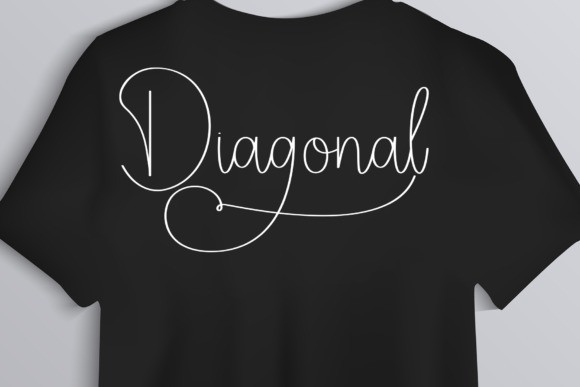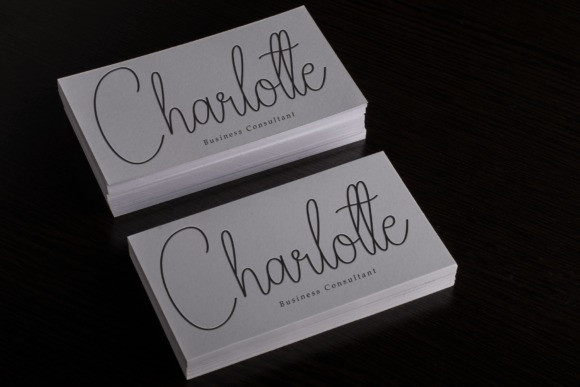
Blackyard Handwriting Font
Blackyard Handwriting Font is a sweet and friendly handwritten display font. Cute and fun, this font is ideal for writing wedding invitations, cards, or any other design that might need a fun touch!